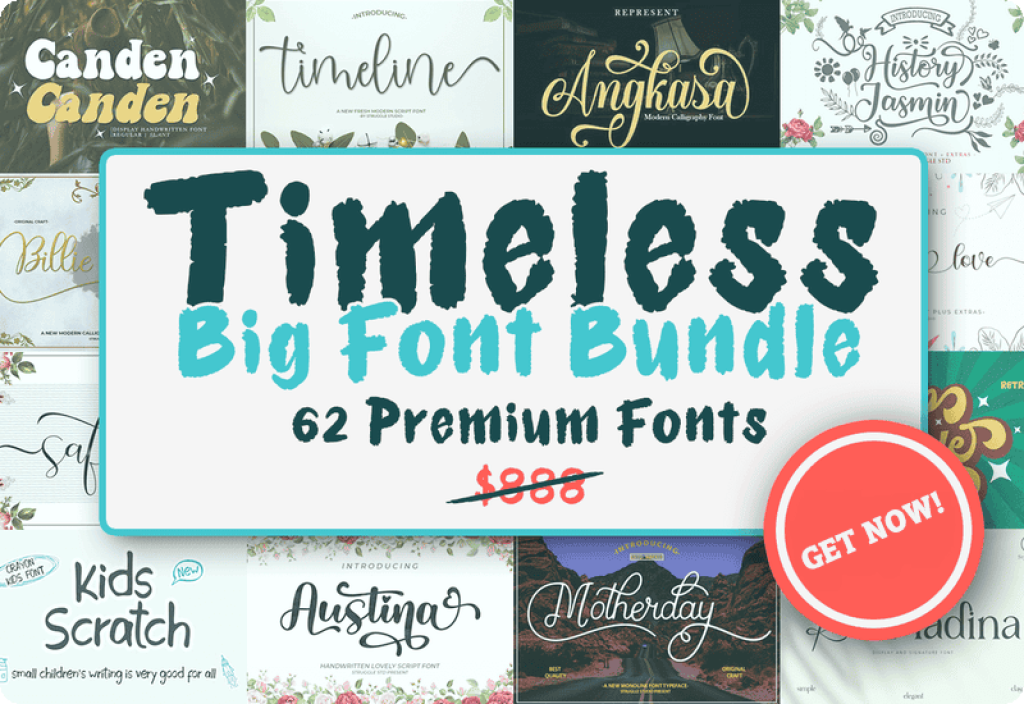
Introduction to the Timeless Big Font Bundle
Designers and creatives understand the value that typography brings to any project. The right font can convey a message with the perfect tone, capturing the essence of what you wish to communicate. Presenting the Timeless Big Font Bundle, an exceptional collection of 52 beautifully crafted fonts that combine modern style with timeless elegance. Worth $888, this bundle is now available for free and is accompanied by a commercial license, allowing you to use the fonts in both personal and professional projects.
Key Features of the Font Bundle
Diverse Font Styles
This bundle offers a wide range of font styles, making it suitable for various design projects, from branding and advertising to web design and print media. With options like script, handwritten, display, and sans serif fonts, you’ll have the creative flexibility to choose the perfect typography for any task.
- Script and Handwritten Fonts: Enhance your designs with elegant script fonts like Justin Hailey Modern Font and Hello Lovely Script. These fonts add a personal touch, perfect for invitations, greeting cards, and personalized branding.
- Display and Bold Fonts: Make statements with bold display fonts like Canden Display Font and Rose Madina Display Font. Ideal for headlines and titles, these fonts ensure your message grabs attention.
- Dingbats and Unique Characters: The bundle includes unique options such as Farming in Jungle Dingbats Font, which offer whimsical and creative symbols to enrich your projects.
High-Quality Craftsmanship
Crafted by the renowned Struggle Studio, each font in this bundle is designed with precision and attention to detail, ensuring the highest quality for your design needs. The fonts render beautifully on both digital screens and print, maintaining clarity and sharpness.
Benefits of the Timeless Big Font Bundle
Versatility Across Projects
This bundle caters to a broad spectrum of creative applications. Whether you’re designing a new brand logo, crafting marketing materials, or creating visually appealing web content, the fonts offer versatility and adaptability. From formal business documents to imaginative art projects, you can tailor your typography to fit the project’s specific needs.
Enhance Your Design Portfolio
By incorporating the Timeless Big Font Bundle into your design toolkit, you can elevate your work and enrich your portfolio. The wide range of styles allows you to experiment with different looks and themes, showcasing your creativity and versatility to potential clients and employers.
The Timeless Big Font Bundle is more than just a collection of fonts; it’s an essential resource for any designer aiming to produce high-quality, visually compelling work. Its diverse range of styles, high-quality craftsmanship, and ease of use make it a must-have for every creative professional. With the included commercial license, this bundle offers unparalleled value, enabling you to expand your creative horizons without breaking the bank.